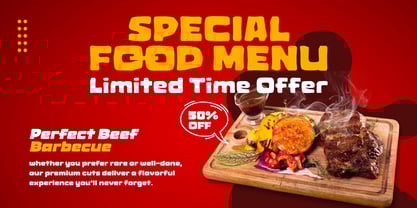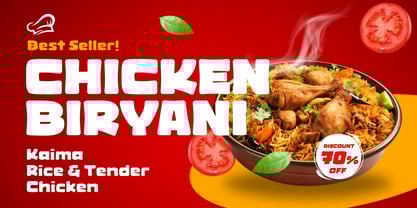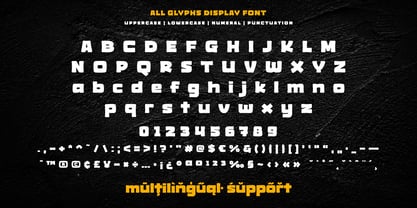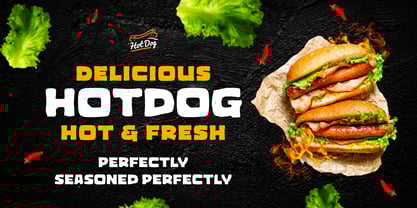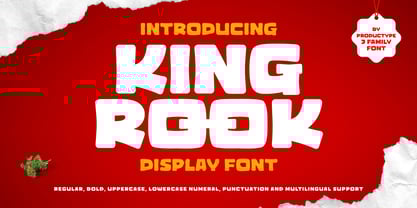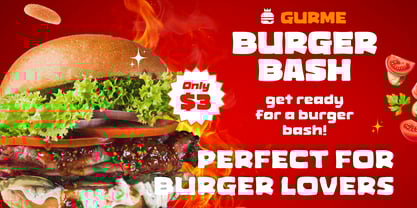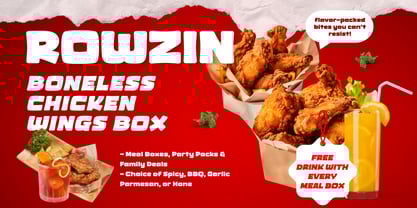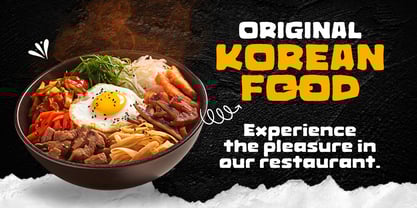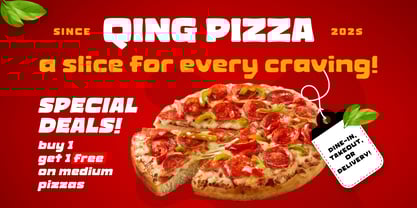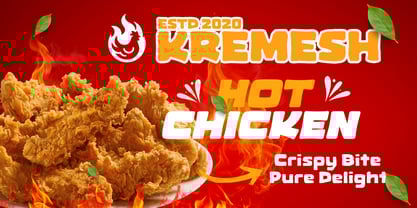
King Rook
The King Rook Font Family was designed by Lita Faolina and published by Product Type. King Rook contains 3 styles and family package options. More about this family
King Rook is a bold and flavorful display font inspired by the joy of food, fun, and creativity. Designed to grab attention with its chunky, quirky forms, King Rook is perfect for culinary-themed projects, playful branding, snack packaging, menu titles, and anything that craves a delicious visual twist.
This font family includes three versatile styles—Regular, Slant, and Rough—offering creative flexibility for designers. The Regular version is clean and bold, ideal for straightforward impact. The Slant style adds energetic movement, great for dynamic compositions. The Rough variant delivers a handcrafted, vintage vibe that feels authentic and artisanal—perfect for food trucks, cafés, or handmade product branding.
King Rook is easy to read yet full of personality, with multilingual support, punctuation, and compatibility across design platforms. Whether you're designing for a burger joint, candy label, or food festival, King Rook will add a bold bite to your typography.